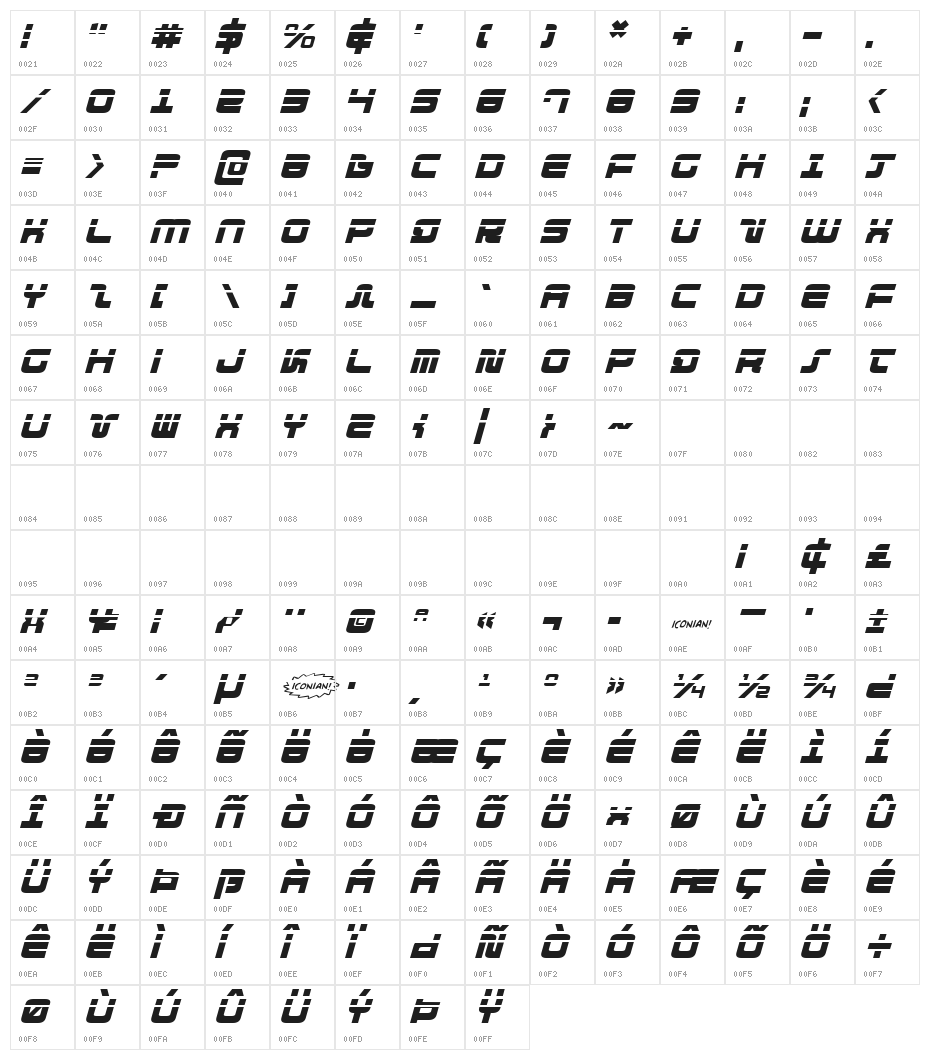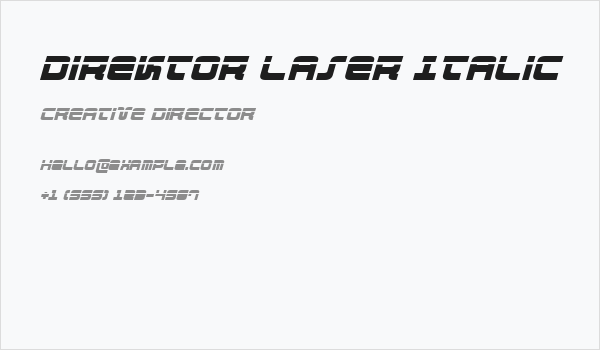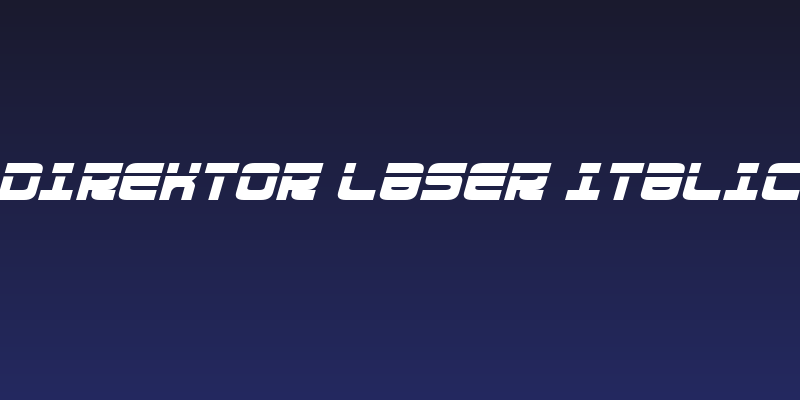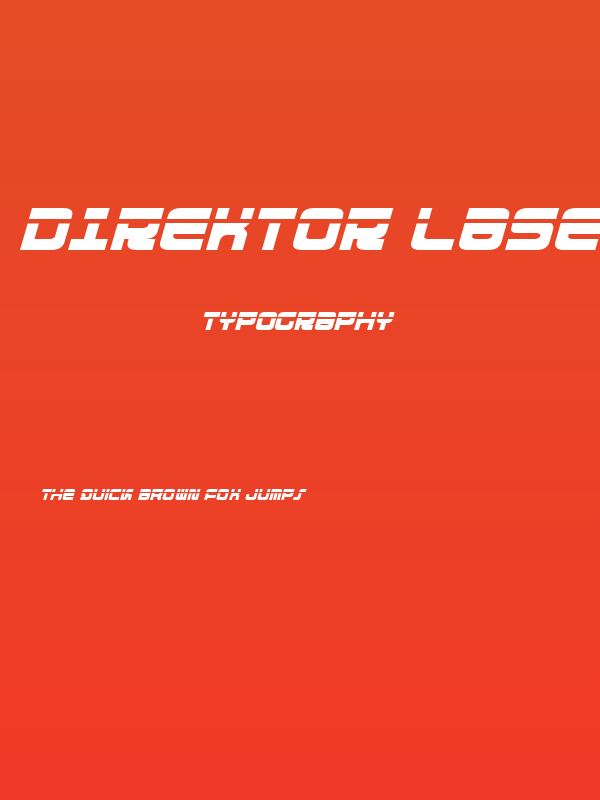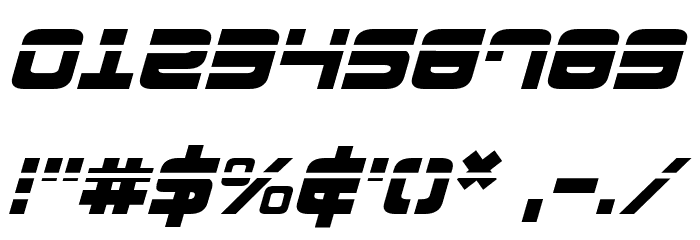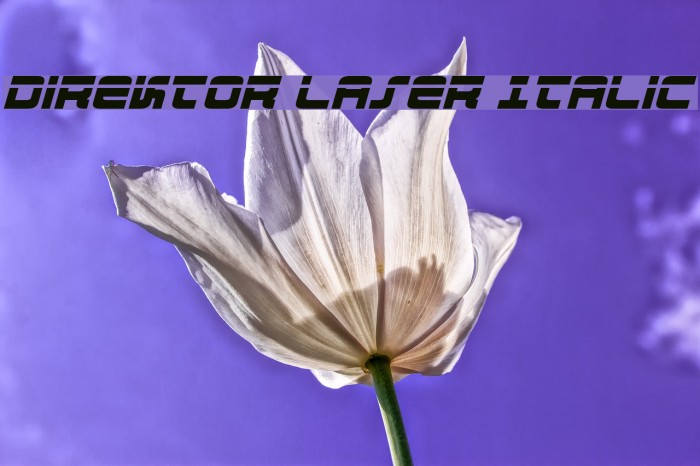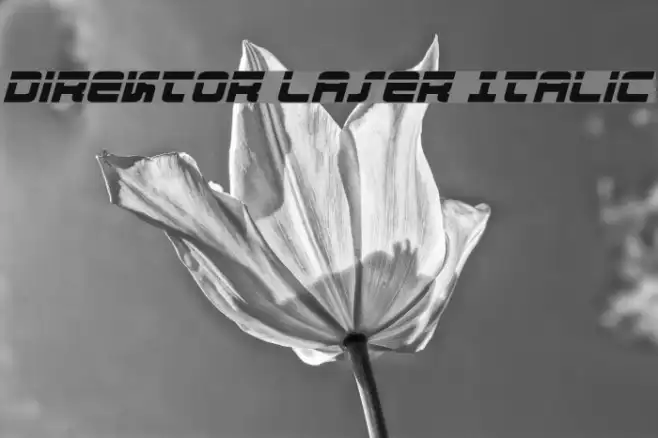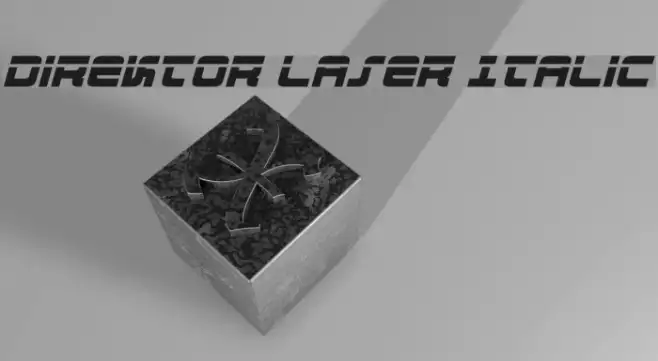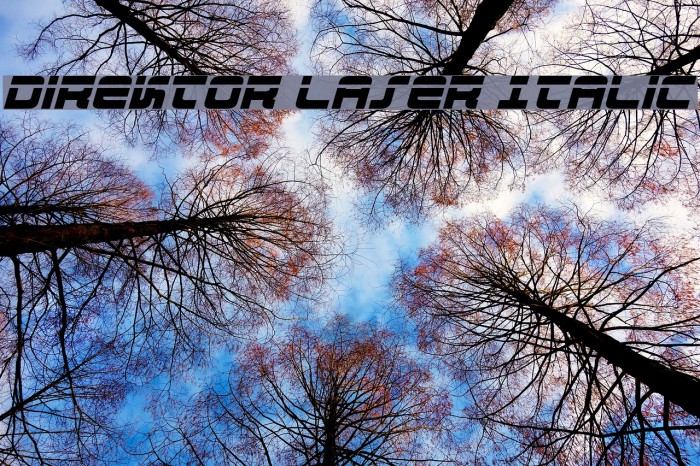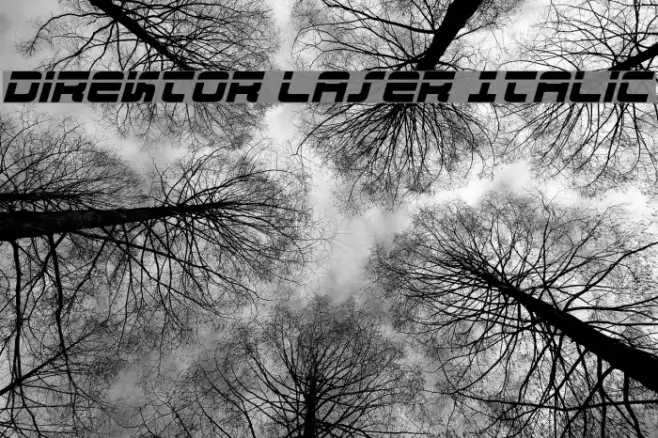
Direktor Laser Italic Font
Direktor Laser Italic Description
This font features a bold, futuristic design with a distinct italic slant, giving it a dynamic and forward-moving appearance. The characters are constructed with sharp angles and clean lines, creating a sense of speed and modernity. The uppercase and lowercase letters maintain a consistent style, with the uppercase being slightly more pronounced. The numbers and special characters are designed to match the overall aesthetic, ensuring uniformity across all elements. The font's unique style makes it suitable for projects that require a modern and edgy look.
| Use Case | Logos, Headlines, Posters |
| Proposed Projects | Ideal for technology branding, sports team logos, video game titles, and sci-fi movie posters. |